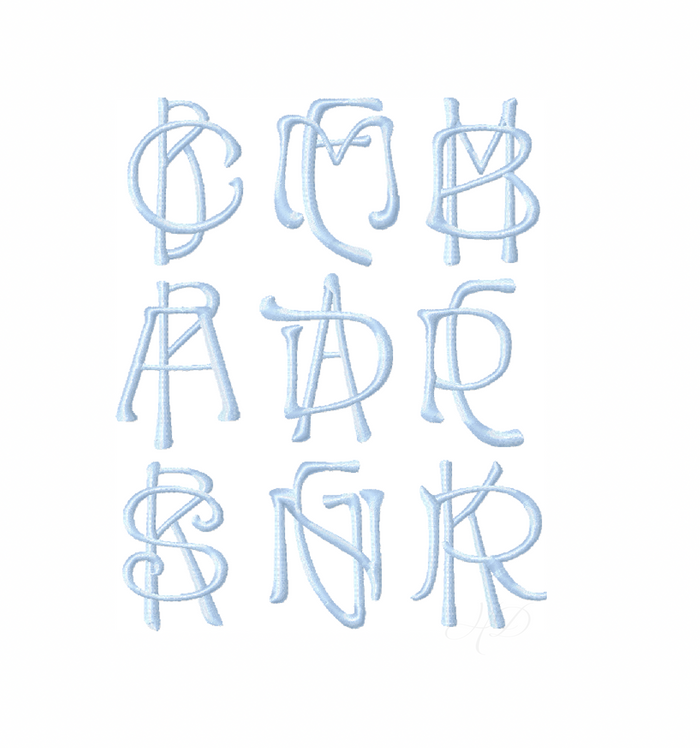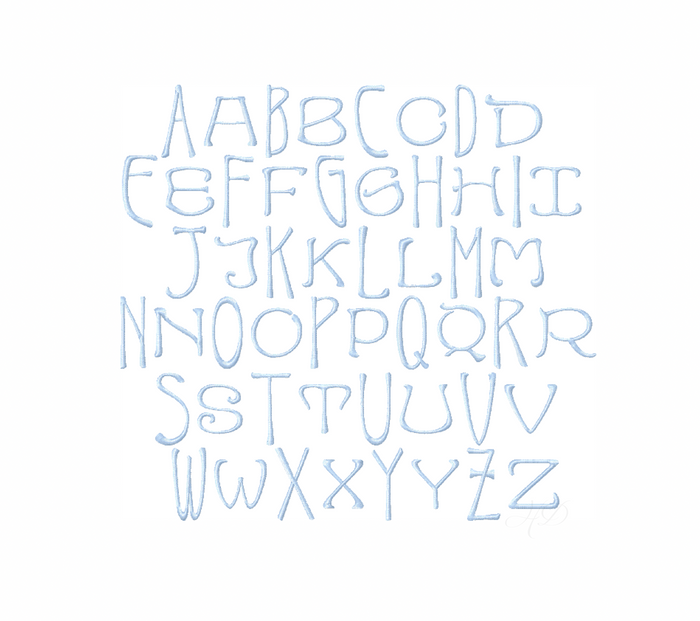
4x4 Darcy Satin Embroidery Font for customizable monogramming
Small 4x4 Darcy Satin Embroidery Font - Monogramming
Elevate your crafting with the Small 4x4 Darcy Satin Embroidery Font, a perfect choice for embroidery machine monogramming. This single-color satin stitch font includes uppercase letters A-Z in two sizes, allowing you to create stylish monograms as featured in our images.